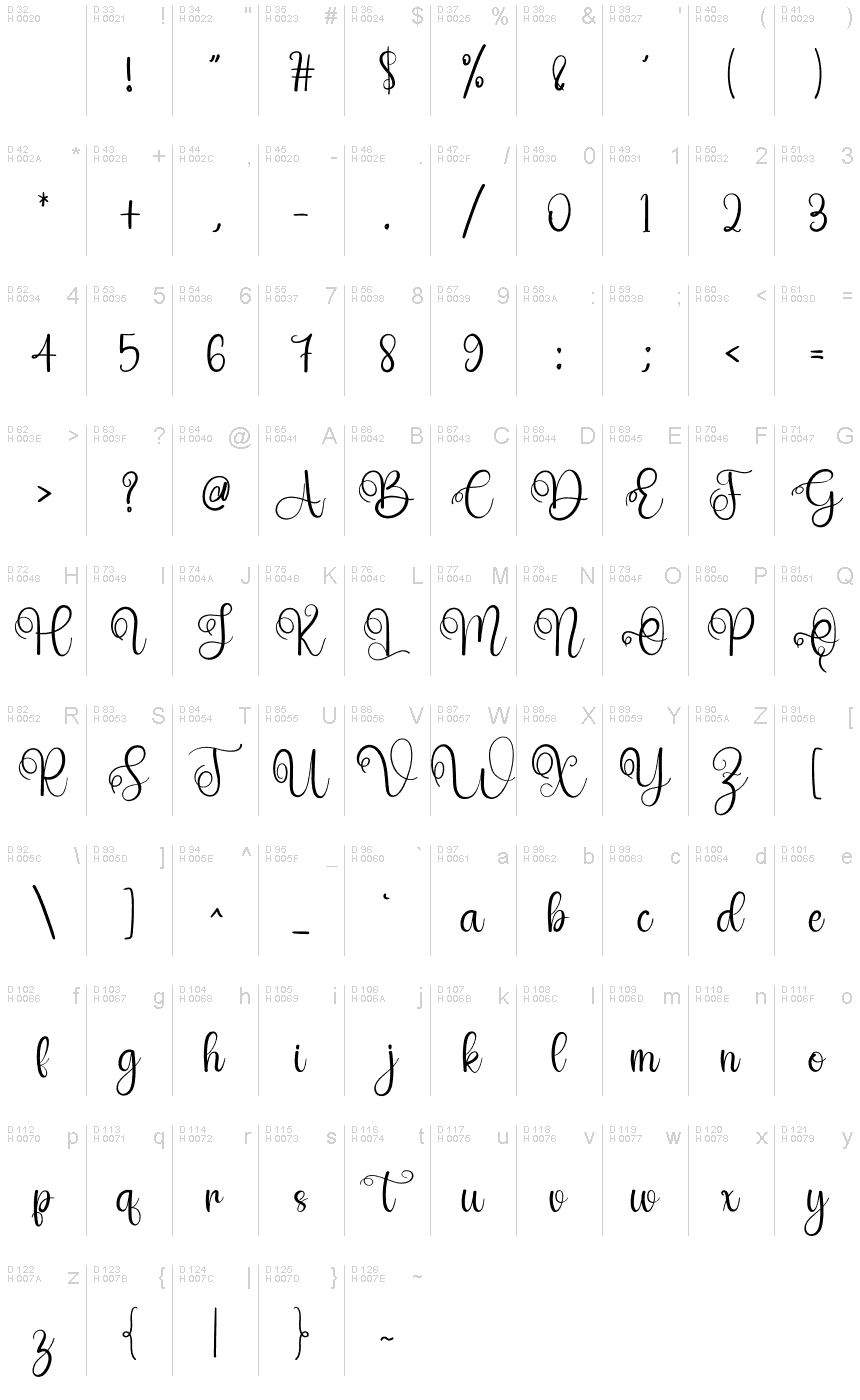
Yellow
Yellow, a mesmerizing calligraphy font by designer 39, exudes an air of elegance and sophistication.
Its semi-light weight imbues it with a delicate charm, making it perfect for wedding invitations that demand a touch of romance. The intricate strokes and graceful curves of Yellow also make it an ideal choice for branding projects seeking to evoke a sense of luxury and refinement. Whether used in fashion editorials or high-end restaurant menus, this font captures attention with its unique blend of artistry and subtlety.
Let Yellow elevate your designs to new heights of beauty and allure.